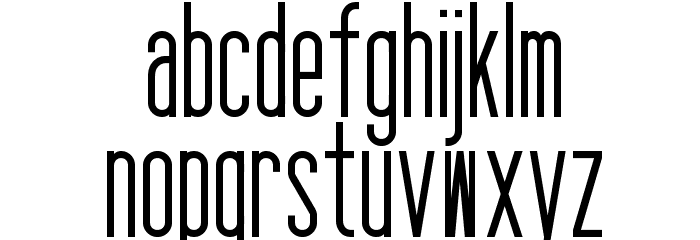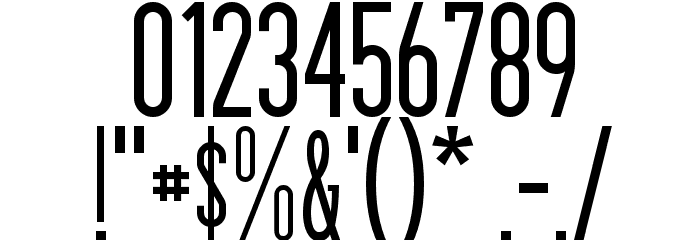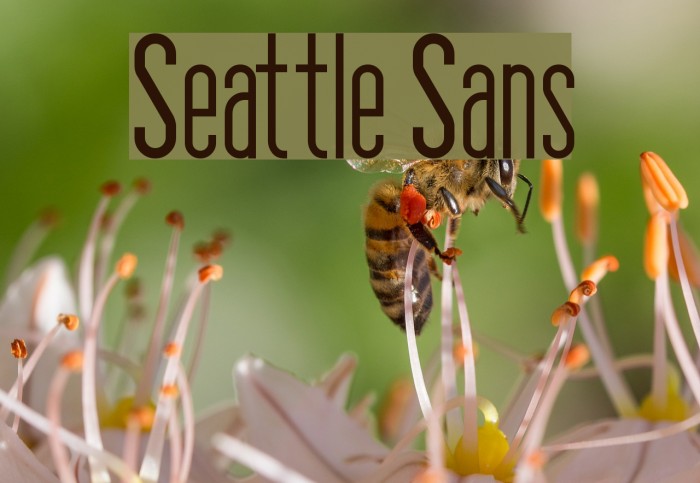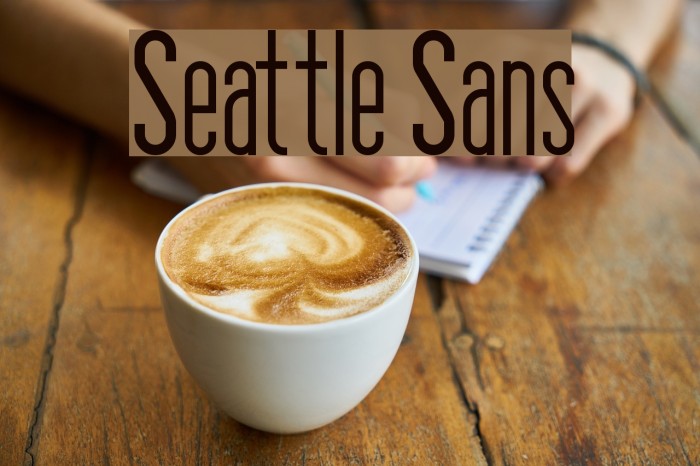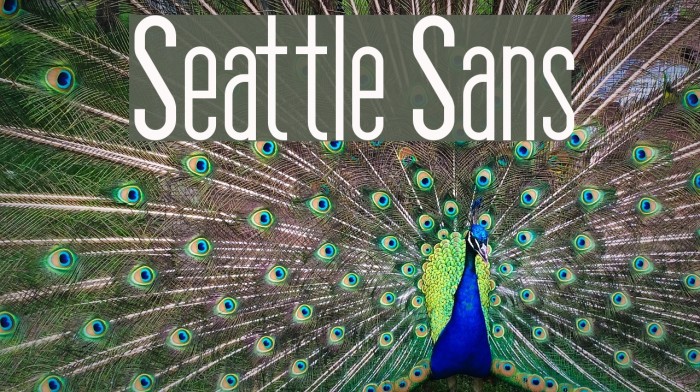
Seattle Sans Font
This font features a tall, narrow design with clean lines and a modern aesthetic. The characters are uniformly structured, providing a sleek and professional appearance. The uppercase letters are particularly elongated, giving a sense of height and elegance. The lowercase letters maintain a consistent style, complementing the uppercase with a slightly more compact form. The numerals are clear and easy to read, matching the overall style of the alphabet. Special characters are included, maintaining the same narrow and tall characteristics. This font is well-suited for projects requiring a contemporary and sophisticated look.
A tall, narrow font with a modern and sleek design.
- Proposed Projects: Ideal for branding, advertising, and editorial design where a modern and professional look is desired.
- Character Spacing: Tight
- Use Case: Headlines, Logos, Branding